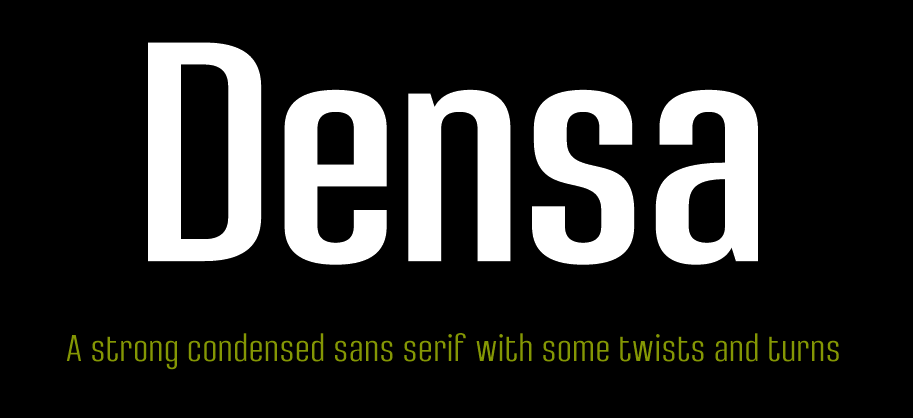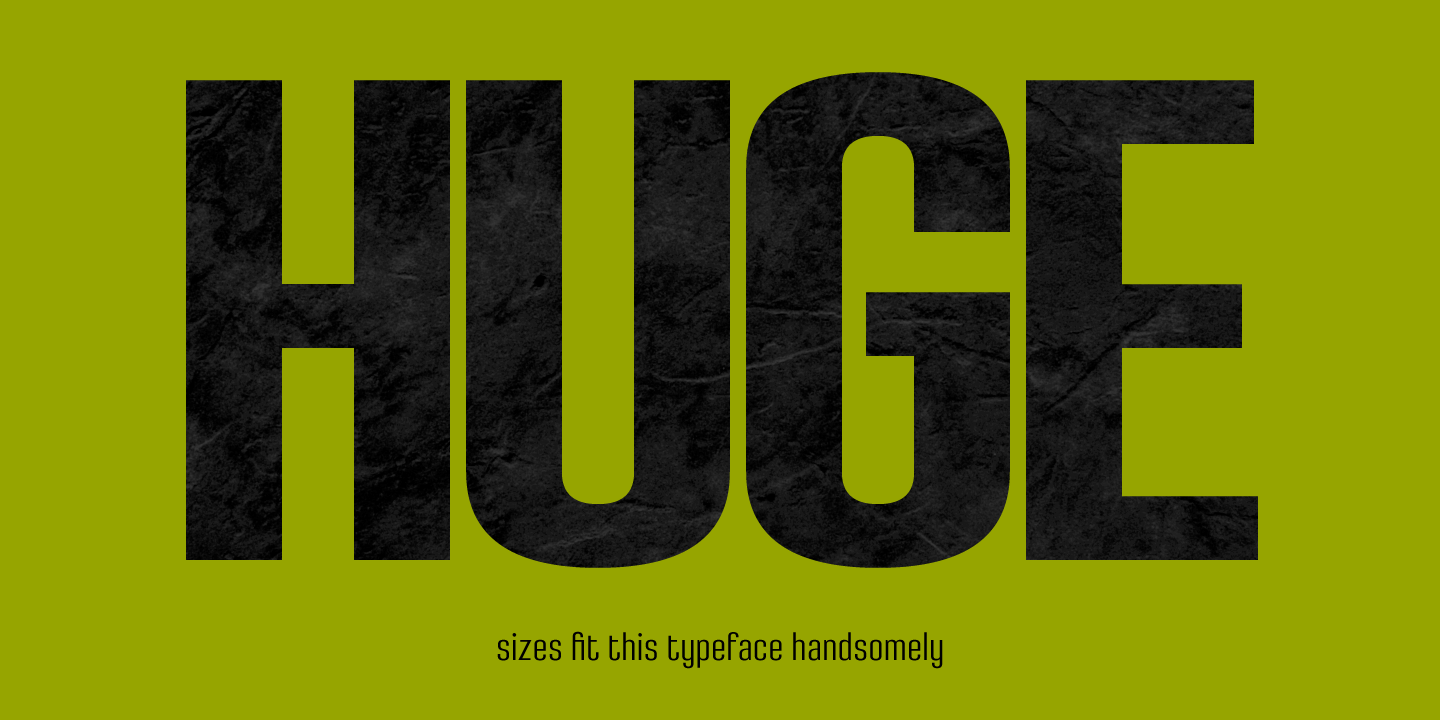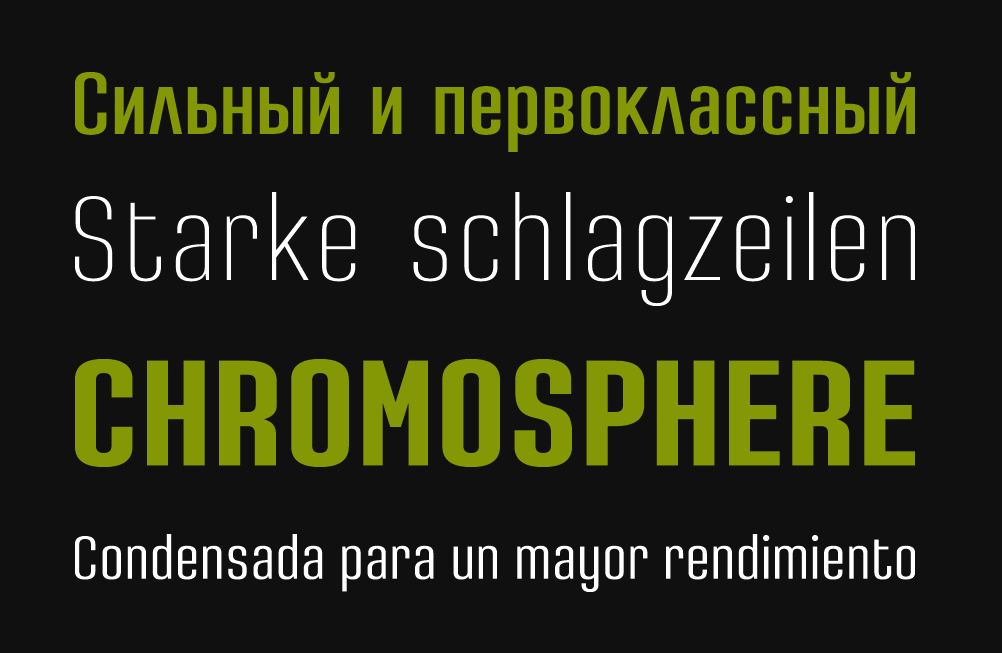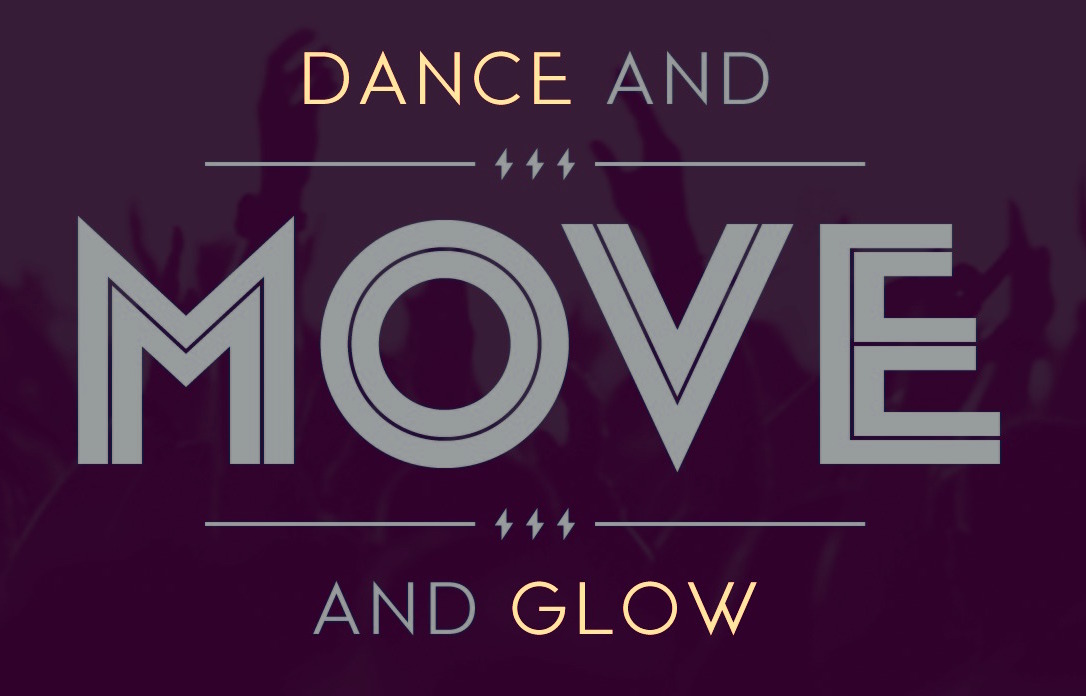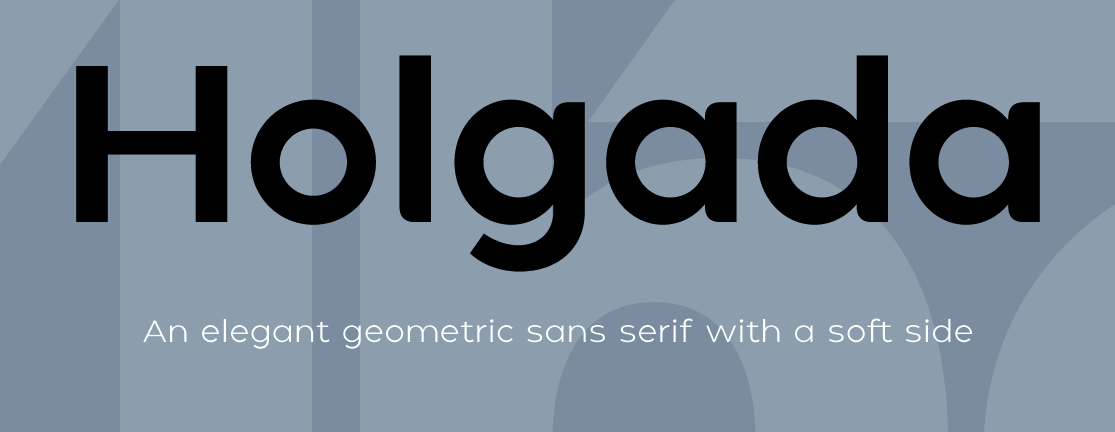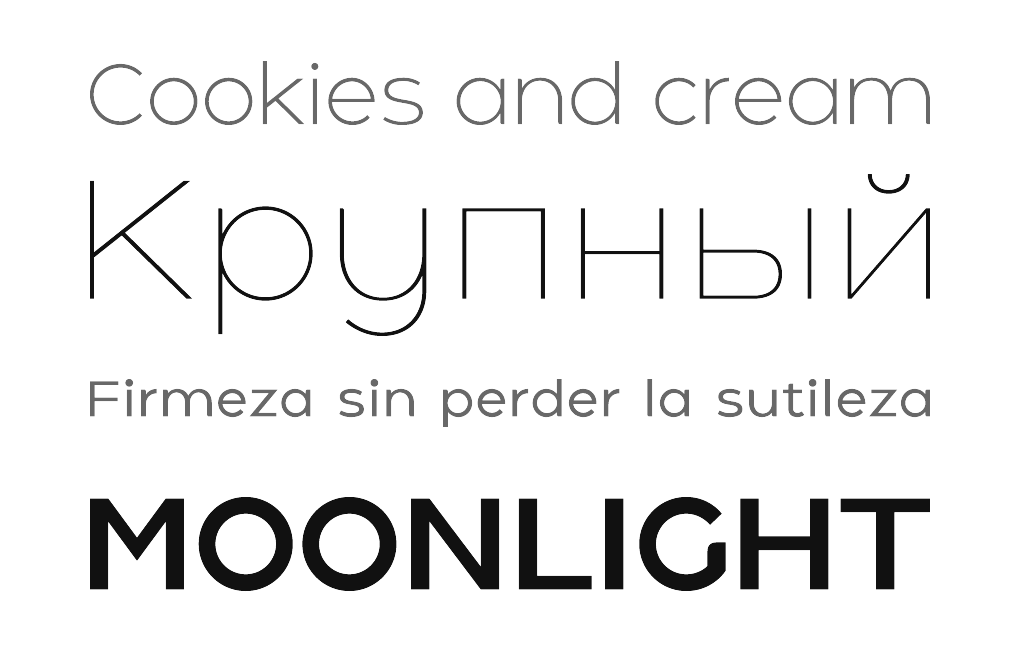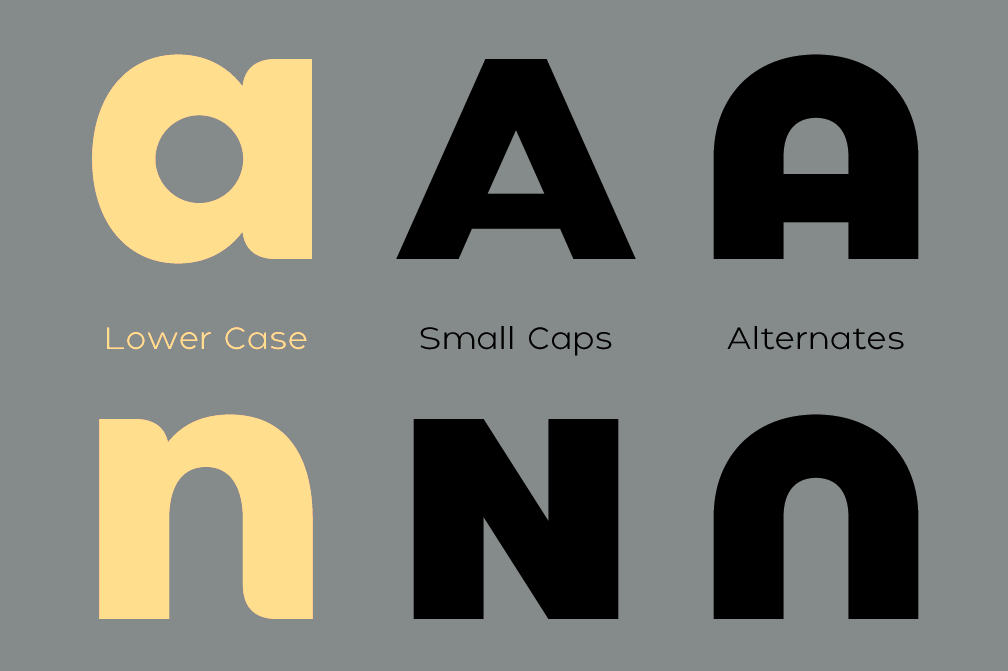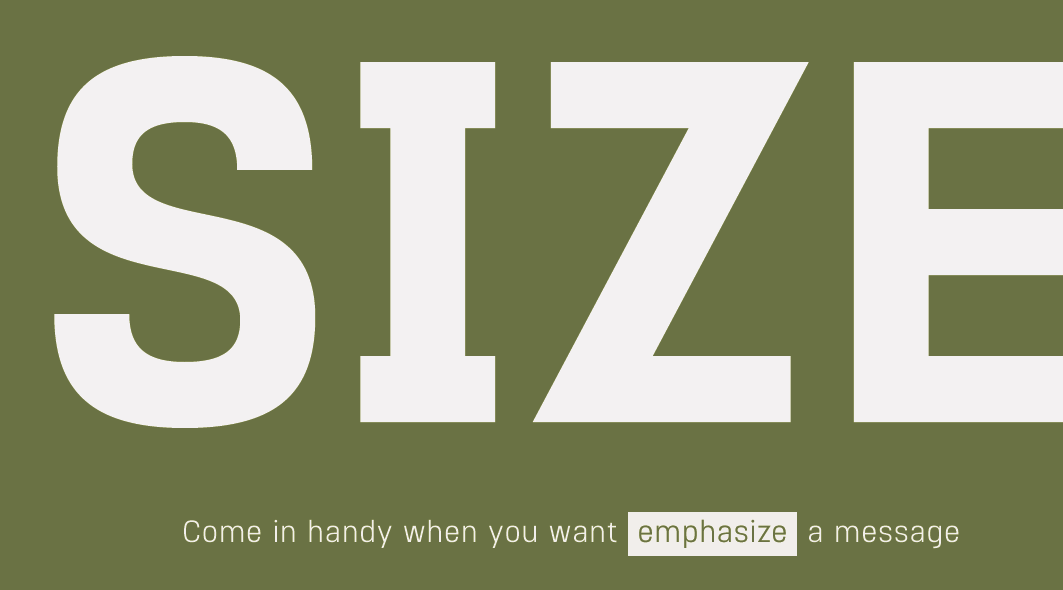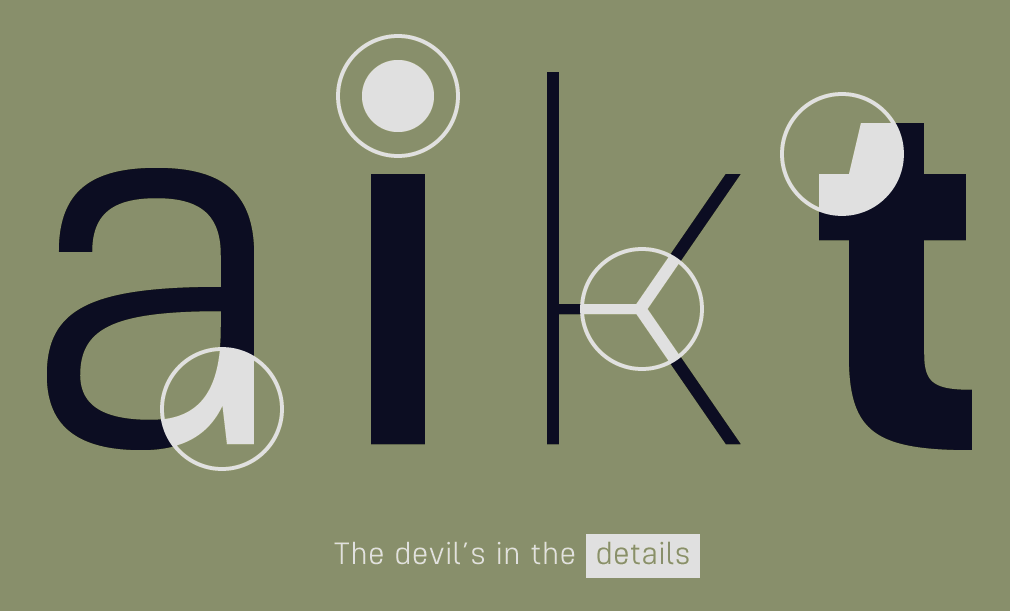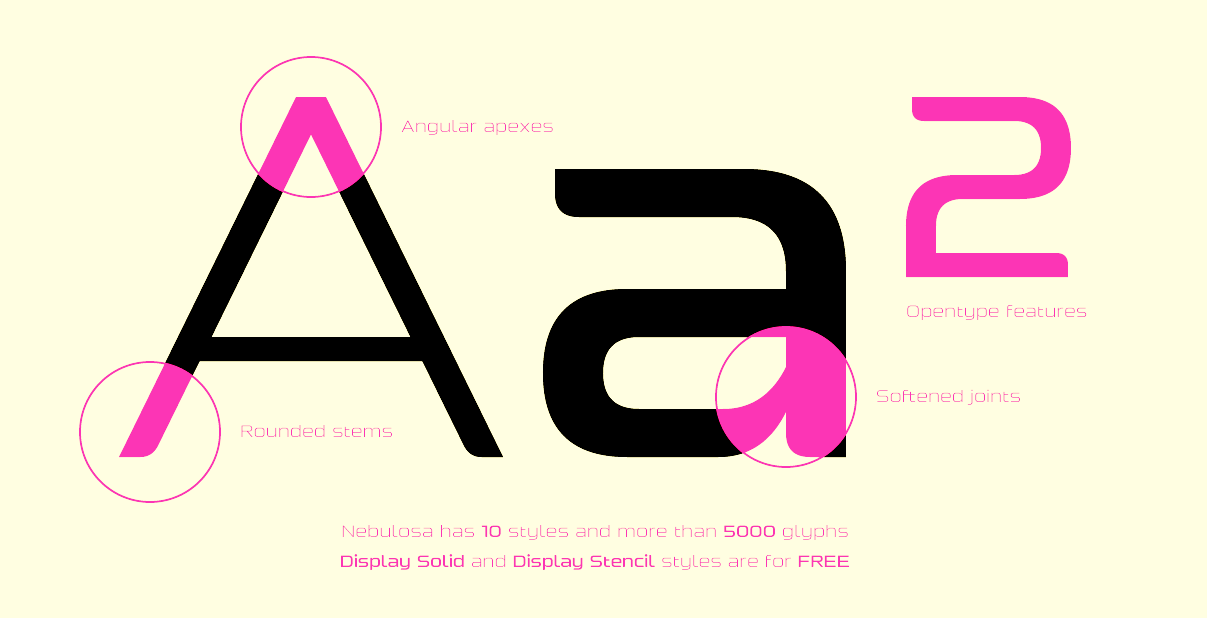
Graviton [Pablo Balcells]
Graviton is a small type foundry based in Buenos Aires, Argentina. It was founded by Argentinian type designer Pablo Balcells in 2013.
Balcells created these typefaces in 2012, most of which cover both Latin and Cyrillic: Engranajes (bike gears), Eslava Inline, Eslava Double Line, Eslava Stencil, Eslava Solid, Eslava Outline, Solida (10-style sci-fi blocky sci-fi typeface), Pixelar, Armadura (a monoline octagonal typeface with a stencil style), Oboe (an ultra-fat blocky typeface), Cuantica (sci-fi) and Led.
In 2013, he published Gubia (a condensed elliptical techno sans), Mensura (a gaspipe sans), Mensura Slab, Mensura Titling (all caps titling typeface family that includes outlined and stencil styles), Mensura Slab Titling, Herradura (an 8-style wide wood type slab serif), and LED.
Typefaces from 2014: Necia (modular), Necia Stencil, Tecnica Slab Stencil, Aguda (modular geometric sans), Aguda Stencil, Cintra (gaspipe sans, +Stencil, +Inline, +Outline), Cintra Slab, Tecnica, Tecnica Slab.
Typefaces from 2015: Violenta Slab (+Stencil, +Unicase, +Inline), Violenta (+Inline, +Unicase, +Stencil).
Typefaces from 2016: Citadina (techno sans family). Still in 2016, Jeroen Krielaars and Pablo Balcells co-designed the animated pixel typeface Pixelar.
Typefaces from 2017: Estricta (a slightly elliptical techno typeface), Ruda (+Ruda Unicase, +Ruda Stencil), Ruda Slab.
Typefaces from 2018: Binaria (an octagonal family), Ordax (an industrial sans typeface by Pablo Balcells, Mariya Vasiljevna Pigoulevskaya and Donna Wearmouth).
Typefaces from 2019: Electronica, Intensa, Masiva (a geometric sans).
Typefaces from 2020: Holgada, Densa (an 8-style condensed sans), Nebulosa (a sci-fi typeface), Naftera (a squarish typeface).
Typefaces from 2021: Tuerca (an 8-style octagonal typeface), Oxima (an 8-style technical sans).